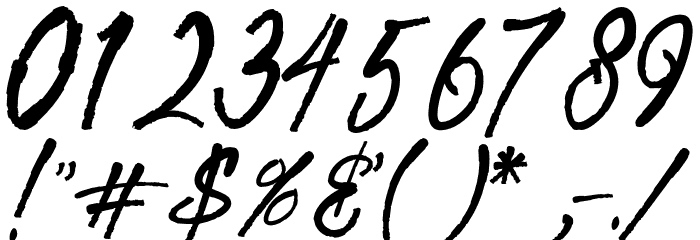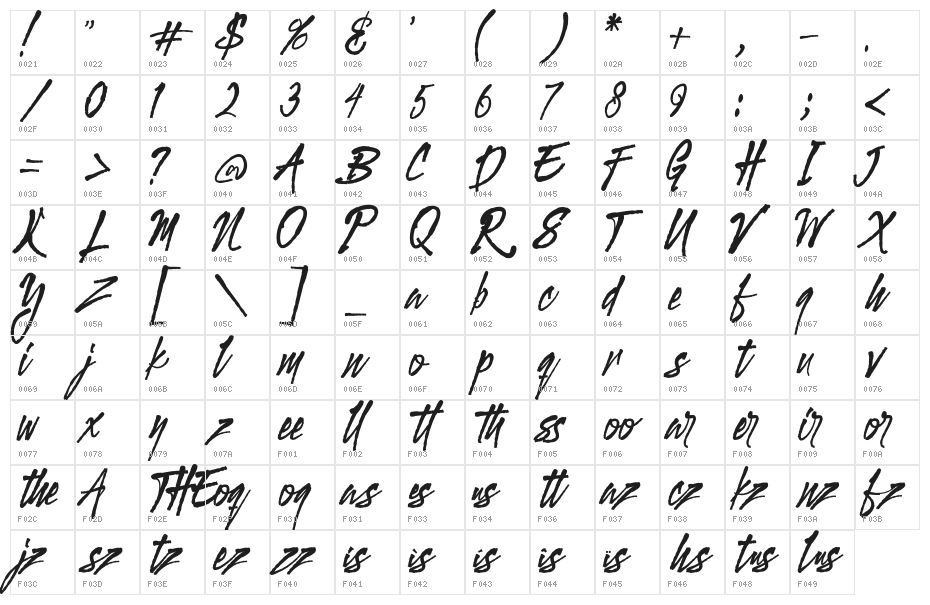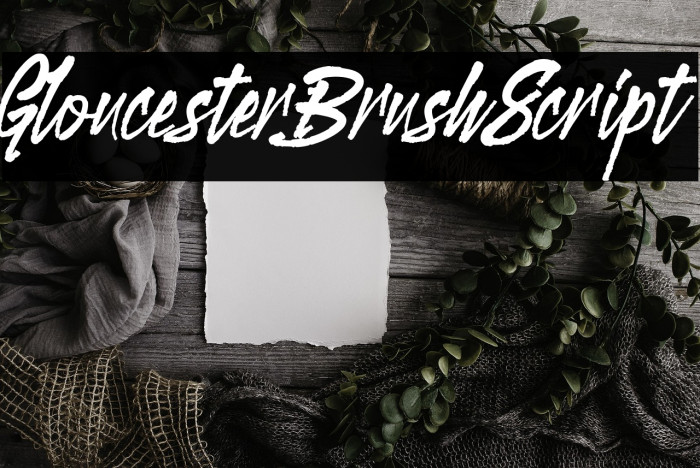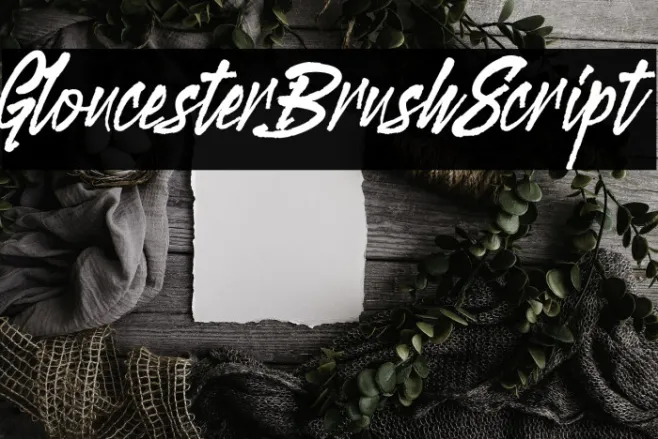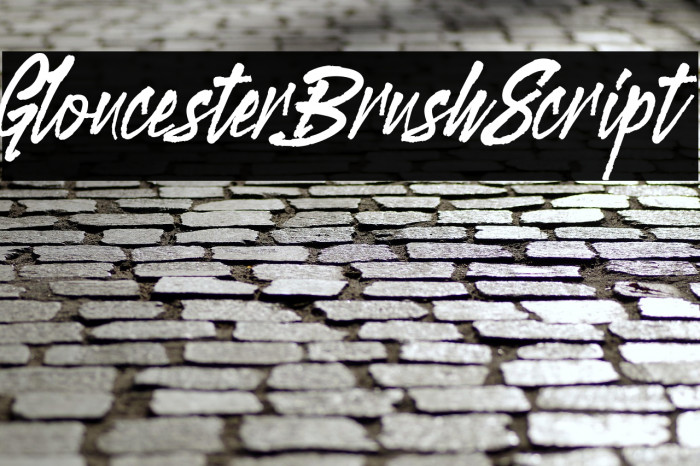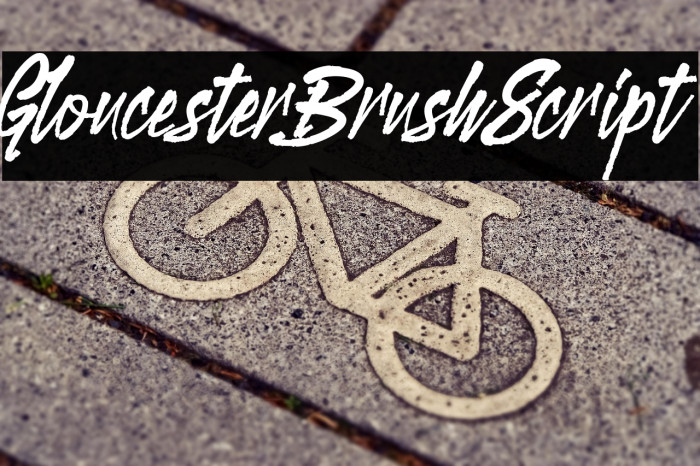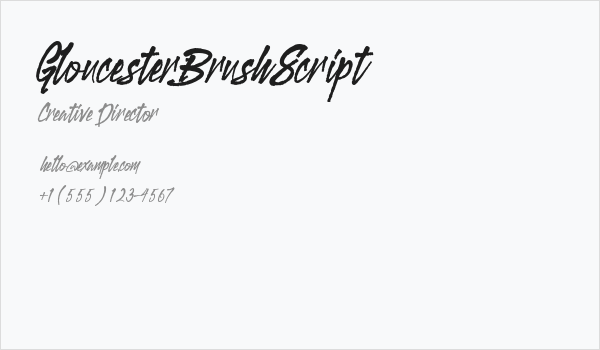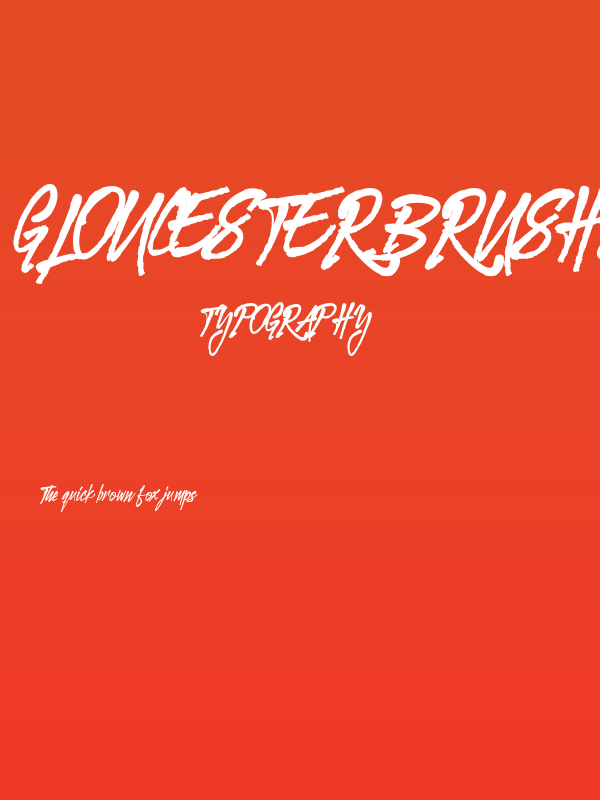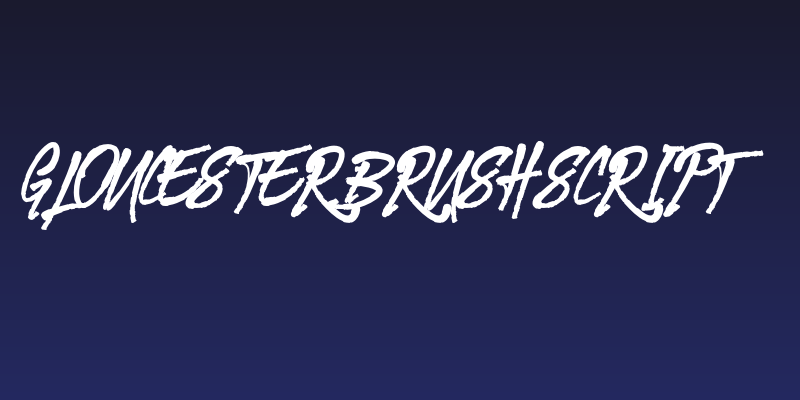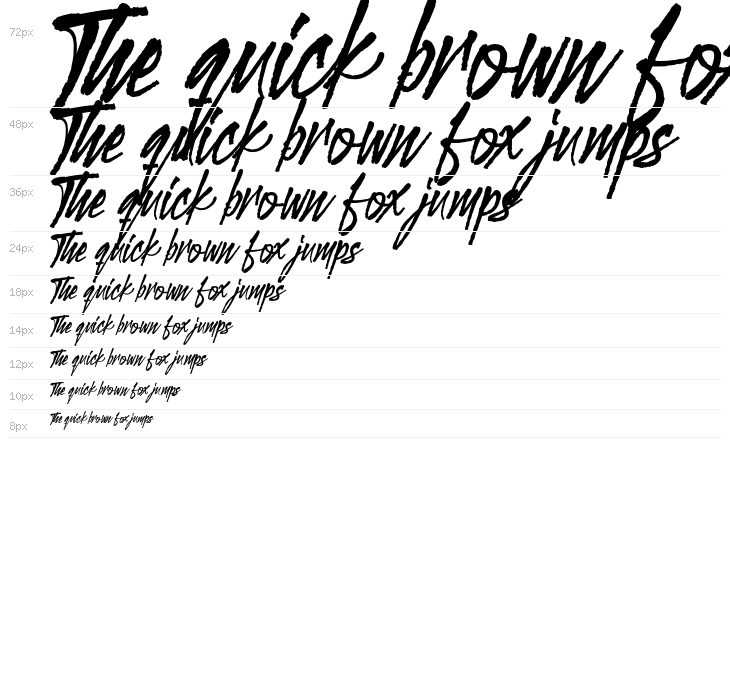
GloucesterBrushScript Font
GloucesterBrushScript Description
This font exudes a dynamic and energetic style, characterized by its bold, sweeping brush strokes that create a sense of motion and fluidity. The letters are connected in a cursive manner, giving it a handwritten appearance. The uppercase and lowercase letters maintain a consistent flow, with the uppercase letters standing tall and the lowercase letters slightly more compact. Numbers and special characters follow the same brush script style, ensuring uniformity across all characters. The overall impression is one of creativity and expressiveness, making it ideal for projects that require a personal touch.
Use CaseLogos, Headlines, Artistic designs
Proposed ProjectsIdeal for creative projects such as invitations, greeting cards, logos, and artistic posters.